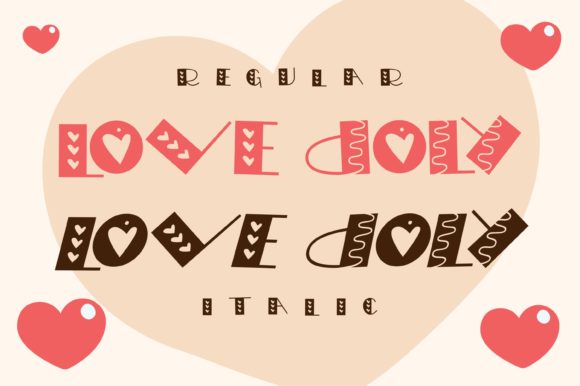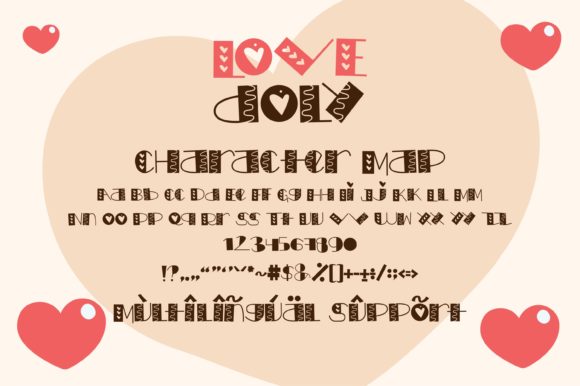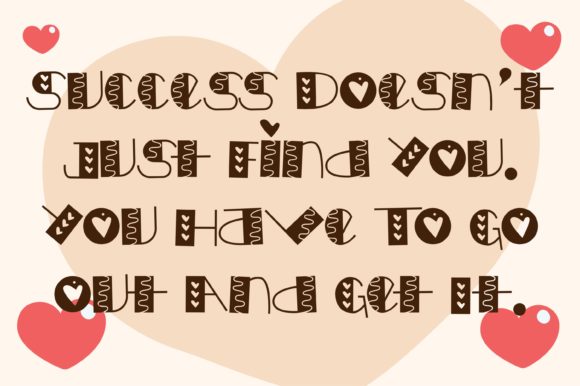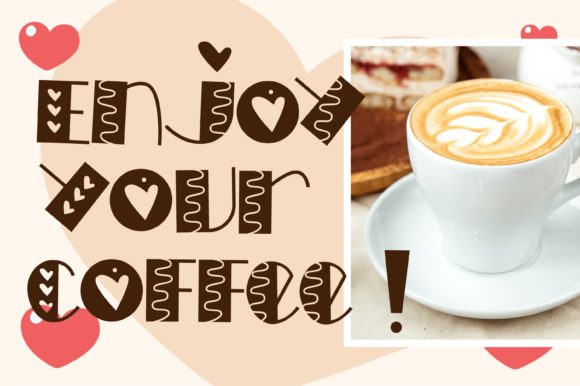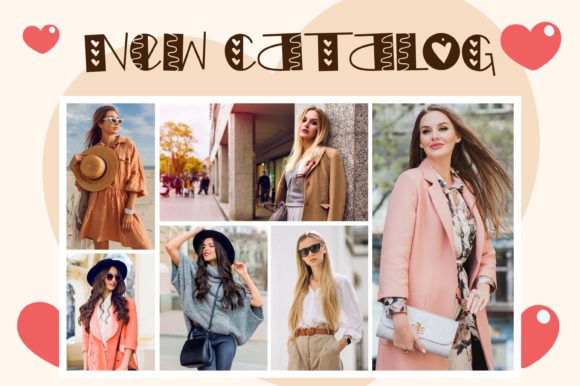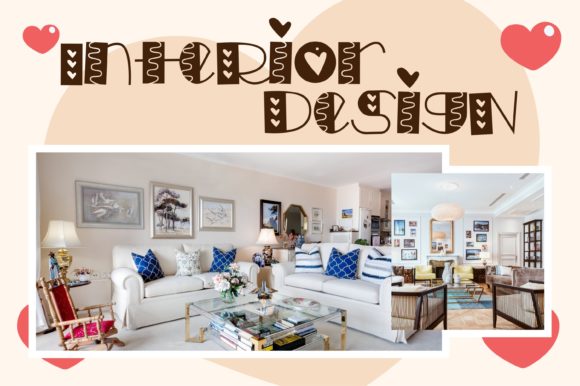
Introduction to Love Doly Font
Love Doly is a quirky and incredibly unique display font.
This enchanting font will turn any creative idea into a true standout .